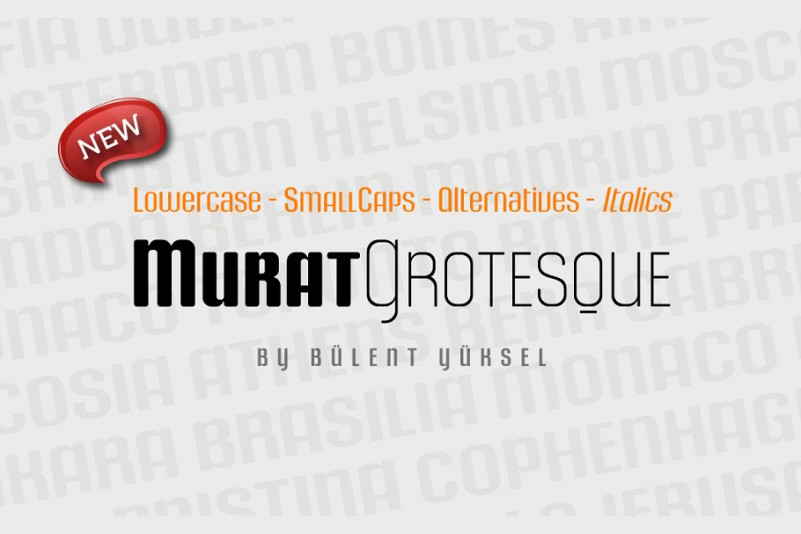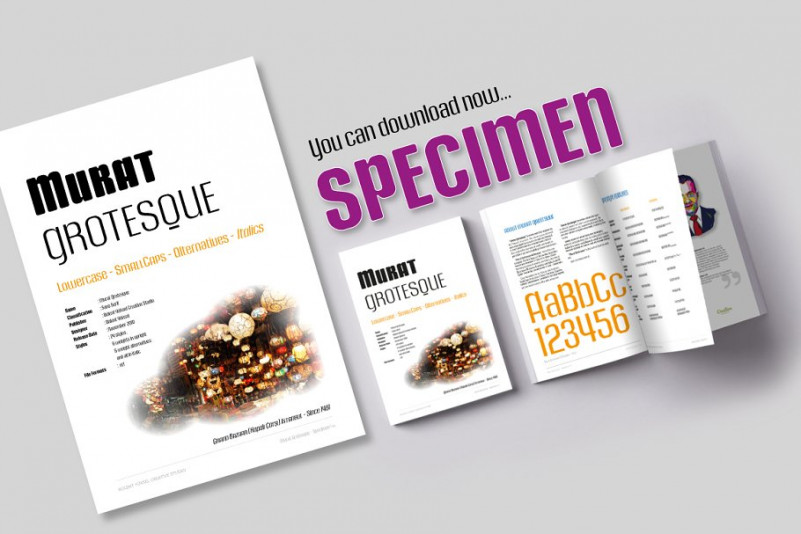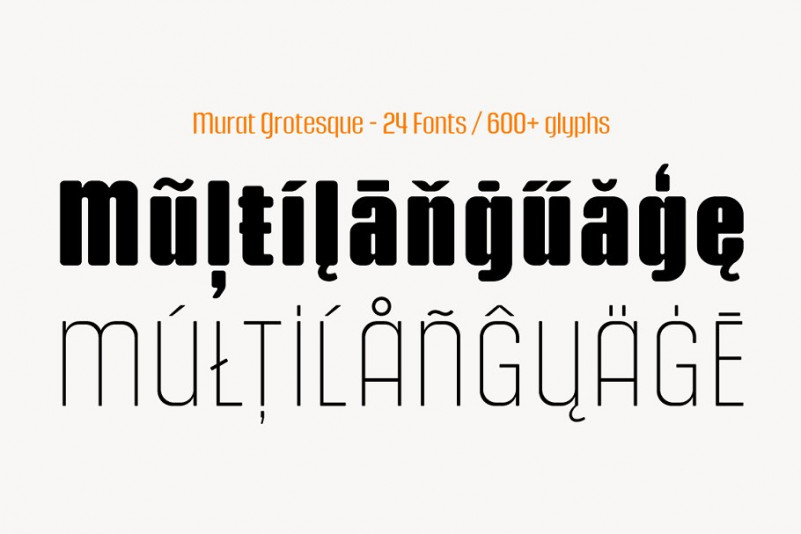
Murat Grotesque Font Family
This is a tall condensed sans serif font. If you are looking for Strong letters with a ton of unique Ligatures and style to choose, It’s the perfect fit. Introducing Murat Grotesque Sans Serif Font Family. It’s a sans serif font inspired by the “Impact” character. The corners were softened and many glyph forms were completely changed. It was transformed into a modern line, which is the result of the harmony of width and height, in particular to promote legibility in lowercase letters.